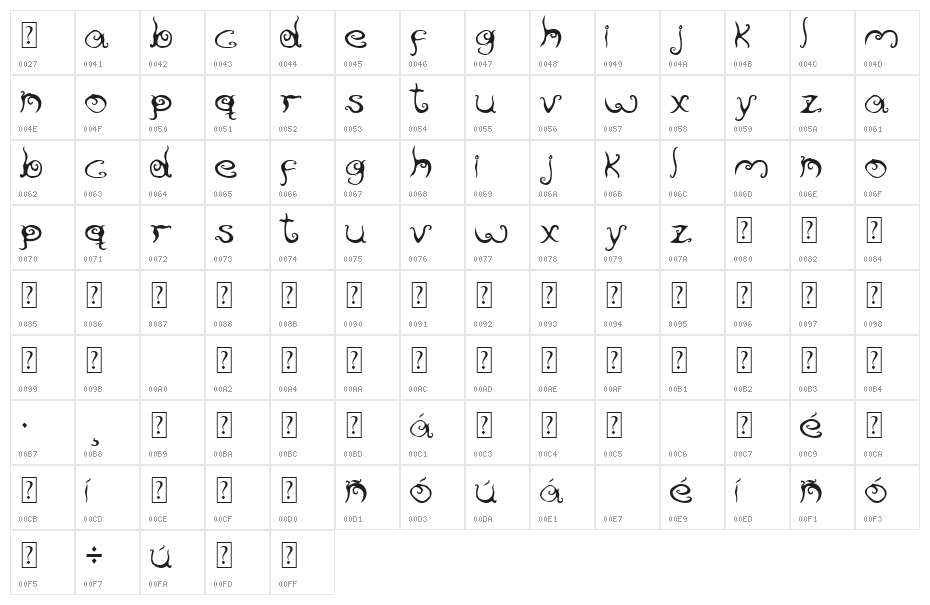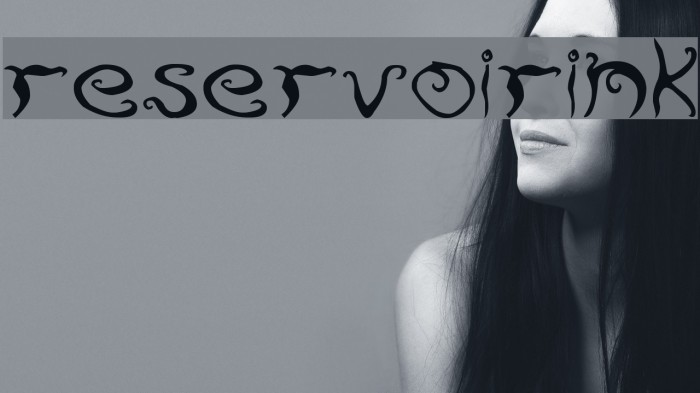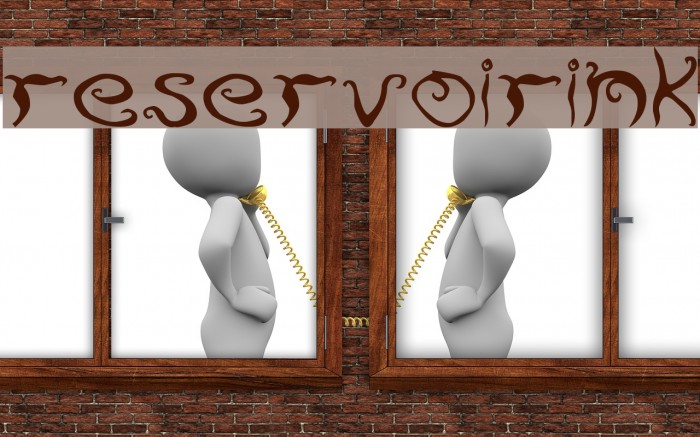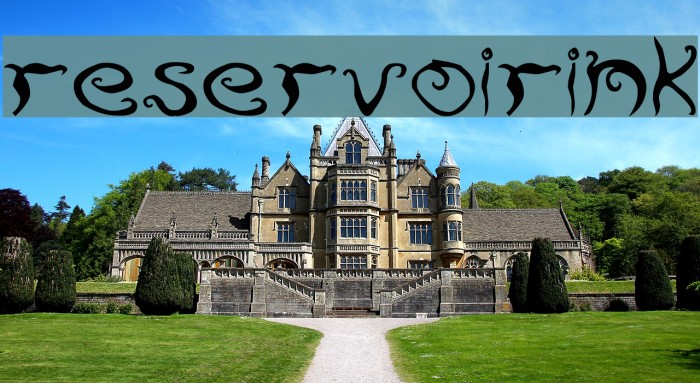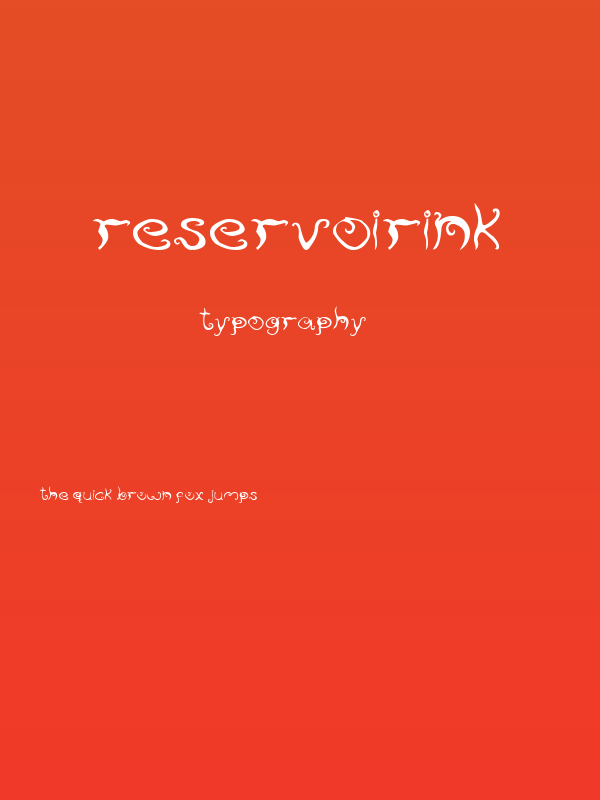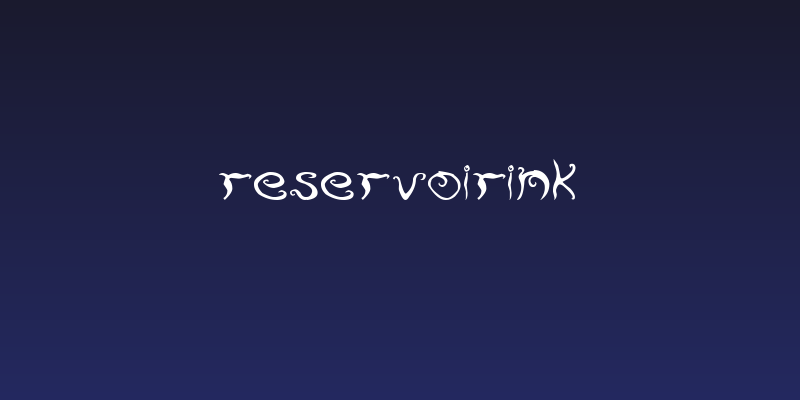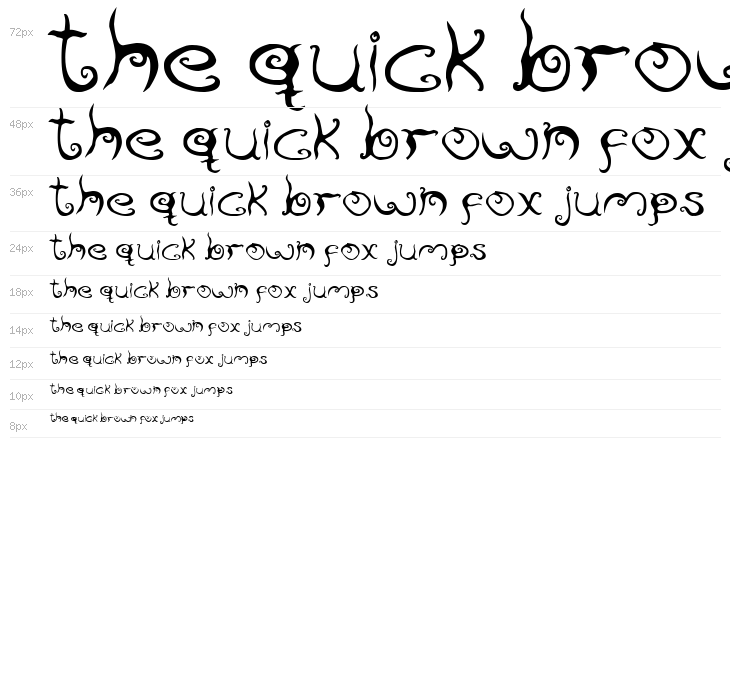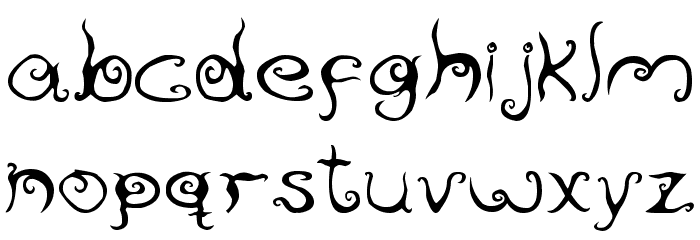
ReservoirInk Font
ReservoirInk Description
This font features a unique and artistic design with a whimsical and slightly gothic flair. The characters are adorned with intricate swirls and curves, giving them a fluid and organic appearance. The lowercase letters maintain a consistent style, with elongated ascenders and descenders that add to the font's decorative nature. The uppercase letters mirror the lowercase in style, providing a cohesive look across the alphabet. The font's special characters, including punctuation marks, are designed with the same artistic embellishments, ensuring a uniform aesthetic. This font is ideal for creative projects that require a touch of elegance and fantasy.
| Proposed Projects | Perfect for fantasy book covers, artistic posters, and creative branding. |